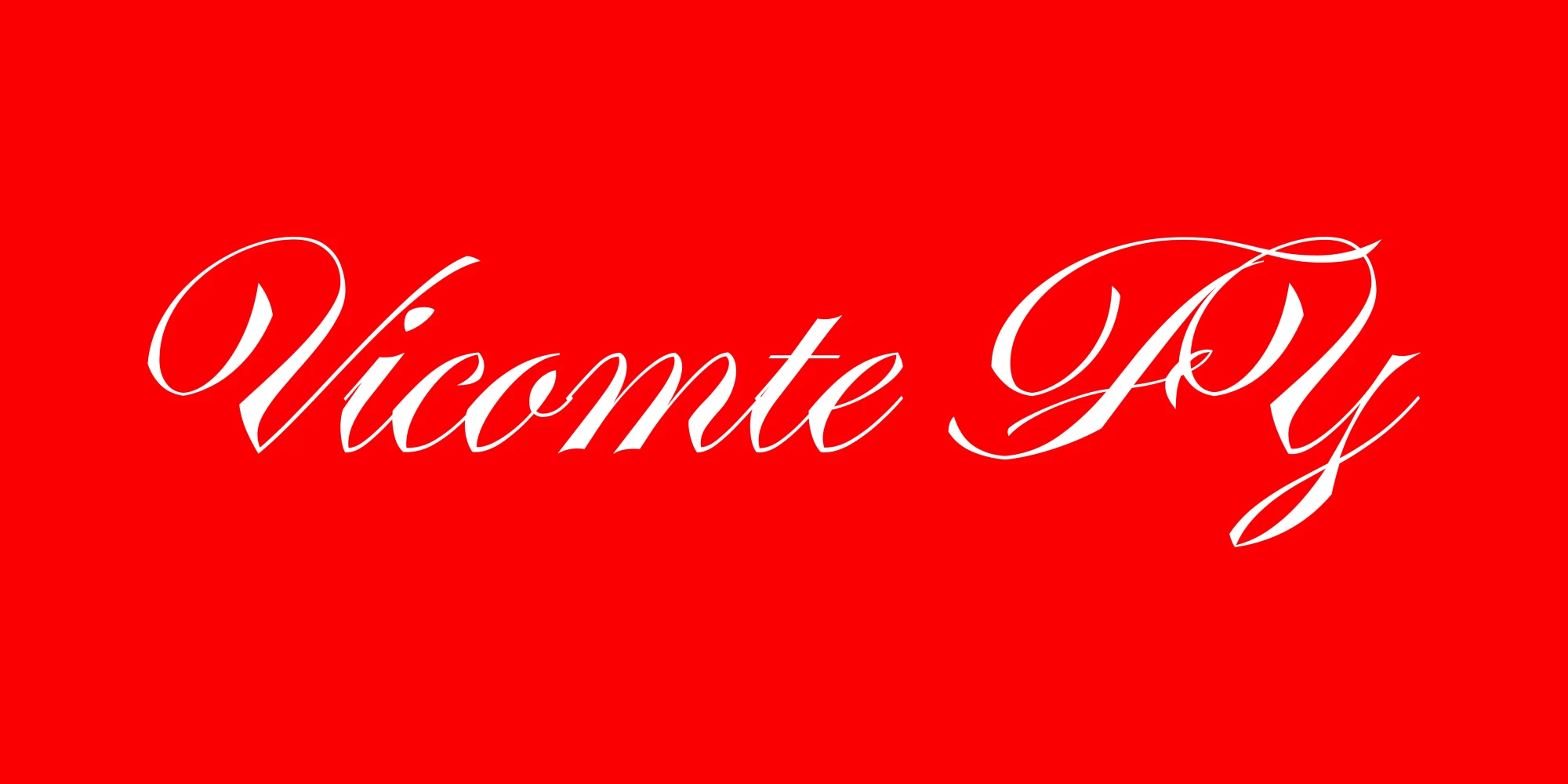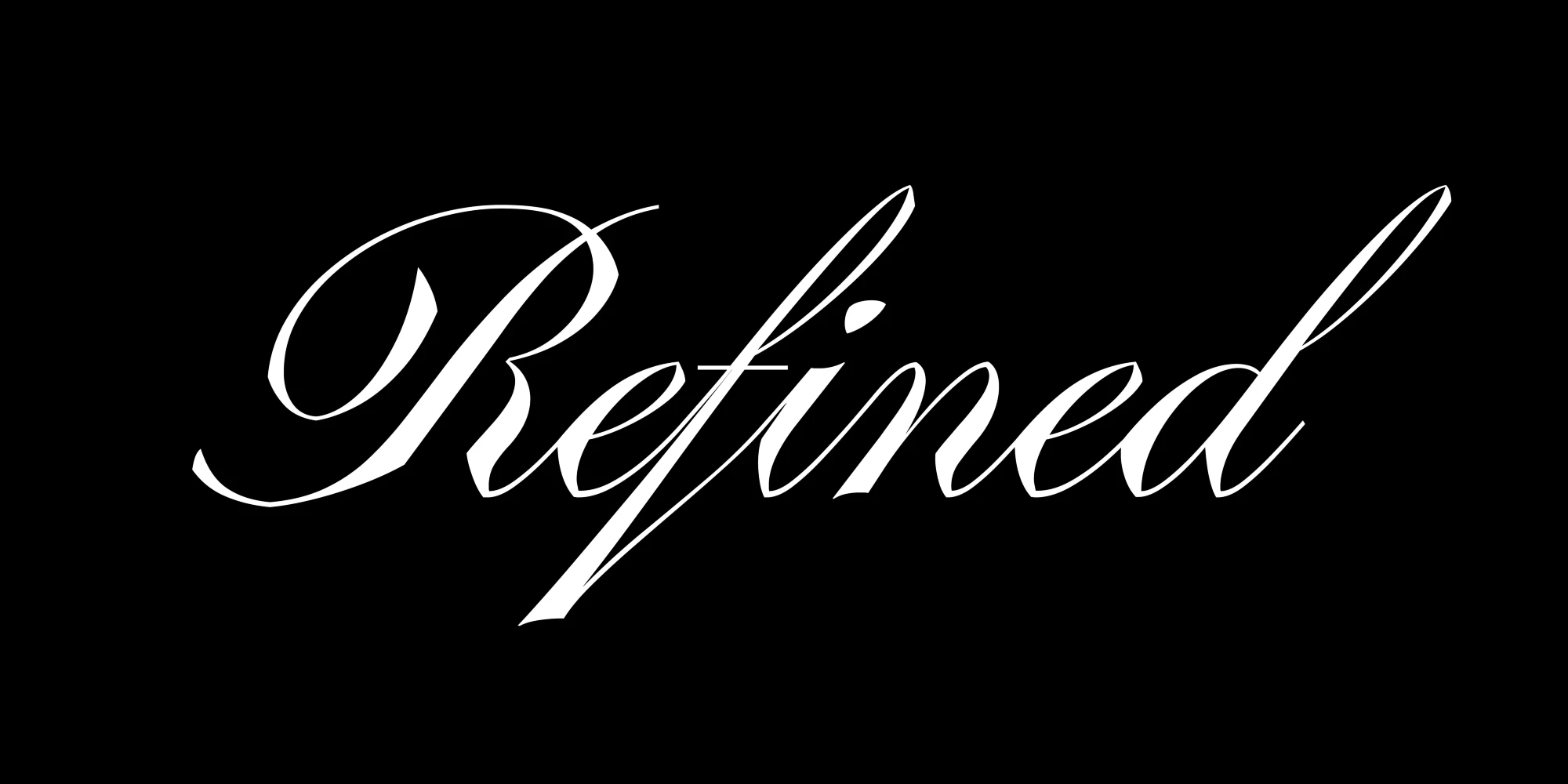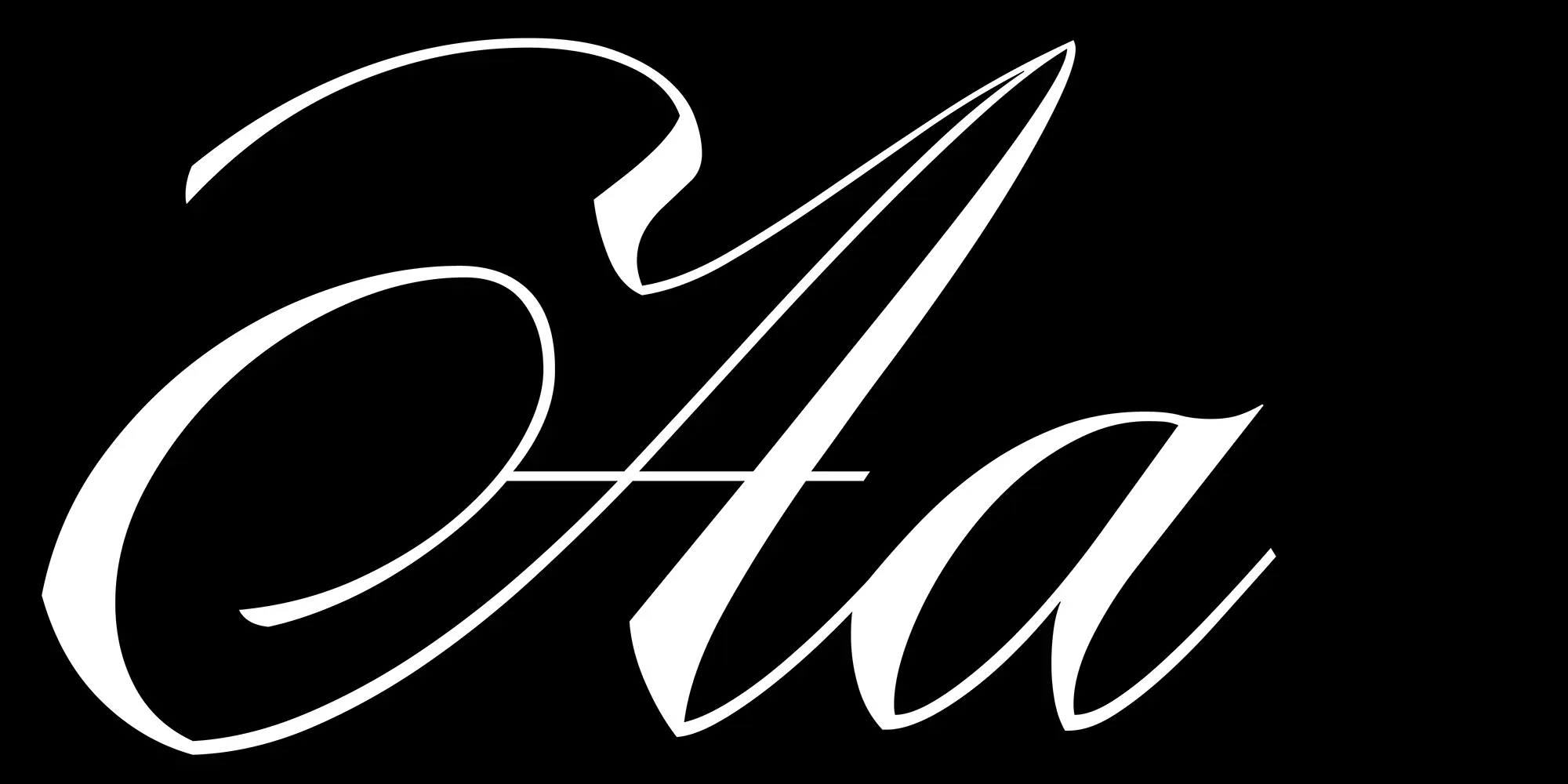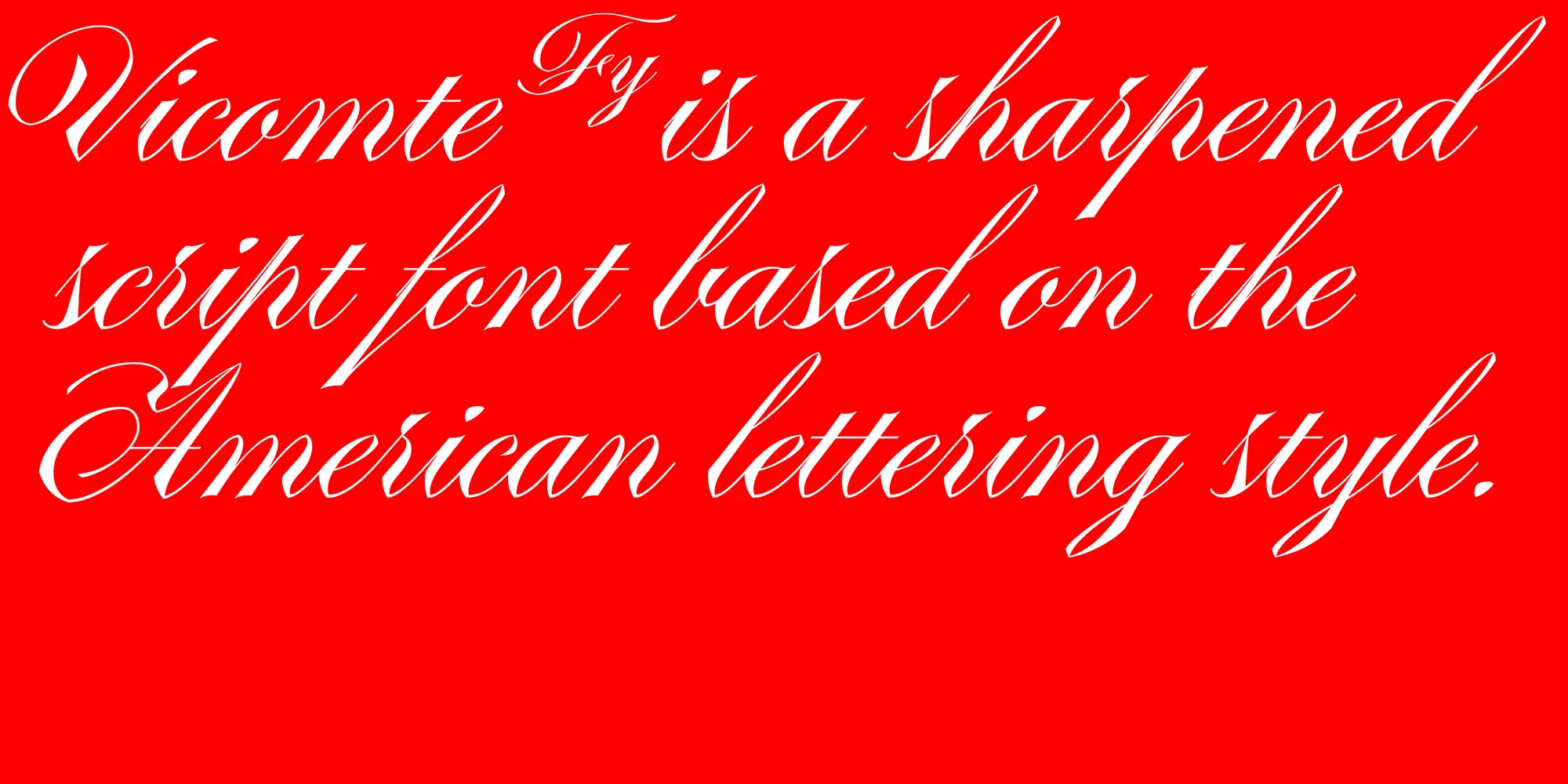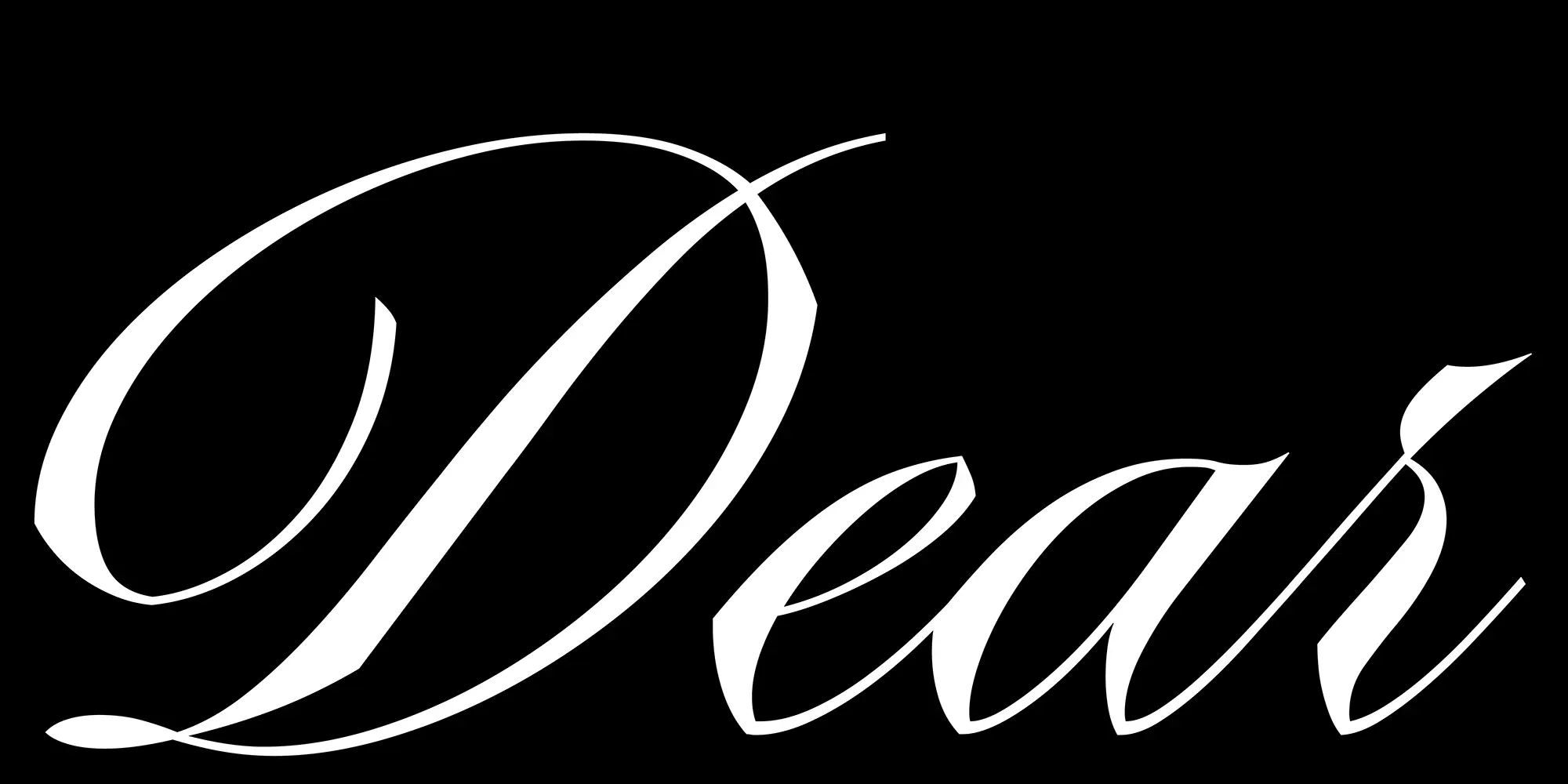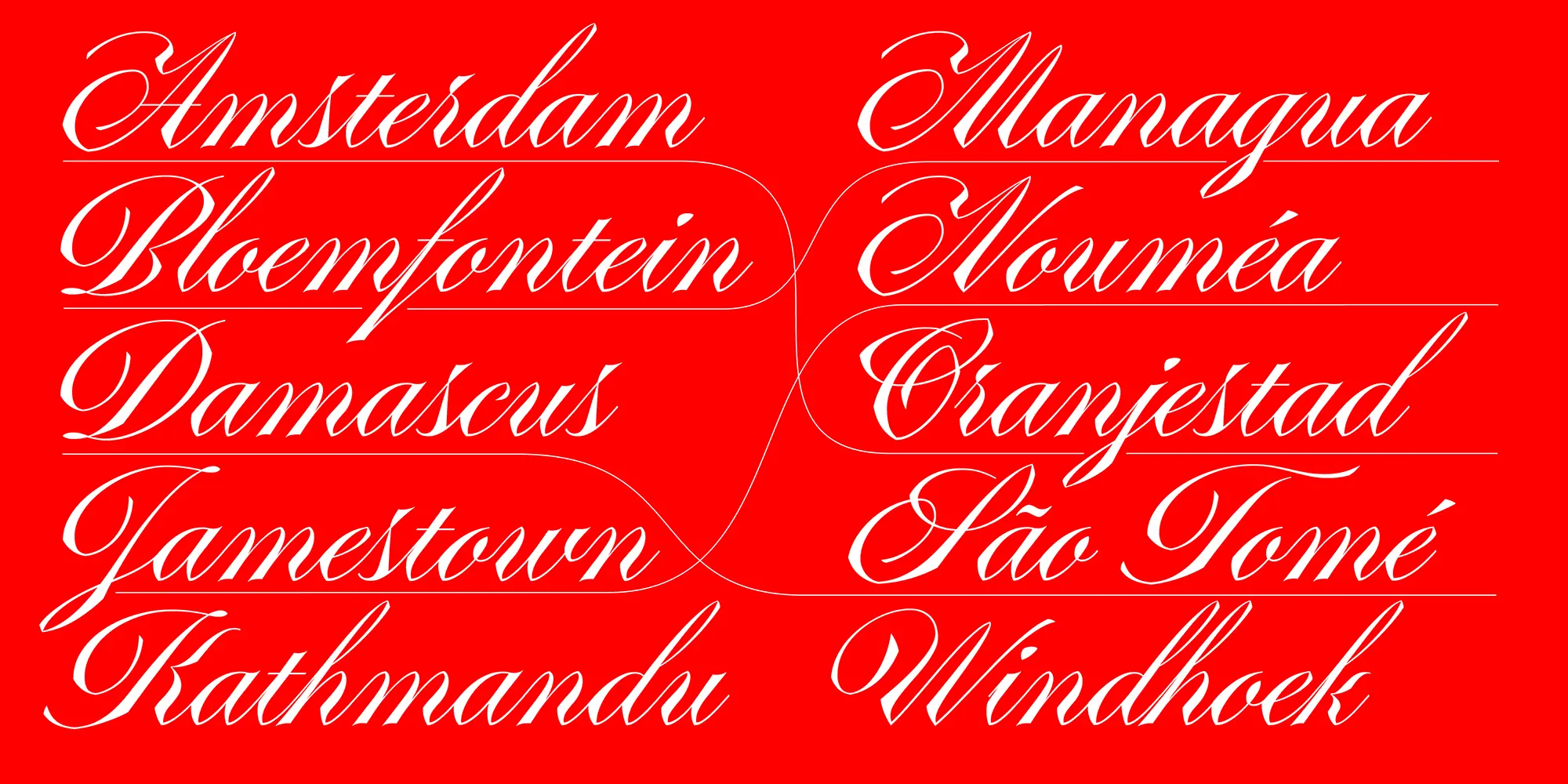
Vicomte Font
Vicomte FY is a script typeface inspired by the American lettering style known as Engrosser’s script or, more commonly, Copperplate. Where letters were built stroke by stroke with a pointed pen to echo the burin of the engraver. Moving away from handwriting, it emphasizes inscribed qualities that shape its distinctive look. Alternating curves and angles, narrow proportions, and tight spacing give it a dark, striking texture that conveys strength while preserving the refinement of formal scripts.
![Vicomte font by Black[Foundry] — the word “Vicomte” and the letters “FY” in a white high-contrast connected script on a red background](https://typographer.io/1/assets/blk:vicomte/banner-1.webp:size(2000,1000)?0934)
![Vicomte font by Black[Foundry] — the word “Refined” in a high-contrast connected script with swash capitals](https://typographer.io/1/assets/blk:vicomte/banner-2.webp:size(2000,1000)?dceb)
![Vicomte font by Black[Foundry] — the uppercase and lowercase letters A, in a high-contrast connected script style](https://typographer.io/1/assets/blk:vicomte/banner-3.webp:size(2000,1000)?745b)
![Vicomte font by Black[Foundry] — the words “Vicomte Fy is a sharpened script font based on the American lettering style.” in a high-contrast connected script.](https://typographer.io/1/assets/blk:vicomte/banner-4.webp:size(2000,1000)?3c45)
![Vicomte font by Black[Foundry] — the word “Dear” in an upright, high-contrast script with connected letters](https://typographer.io/1/assets/blk:vicomte/banner-5.webp:size(2000,1000)?c45b)
![Vicomte font by Black[Foundry] — a grid of ten city names in a high-contrast connected script, with thin lines connecting the words across the grid](https://typographer.io/1/assets/blk:vicomte/banner-6.webp:size(2000,1000)?b119)